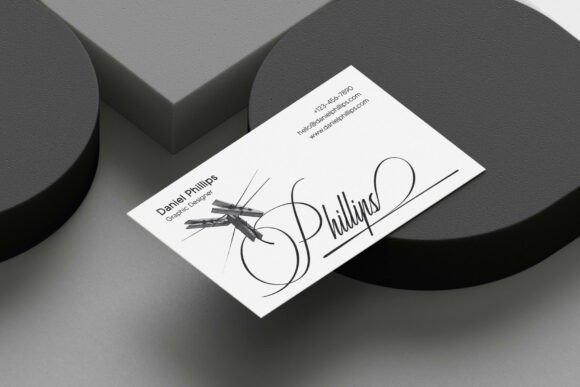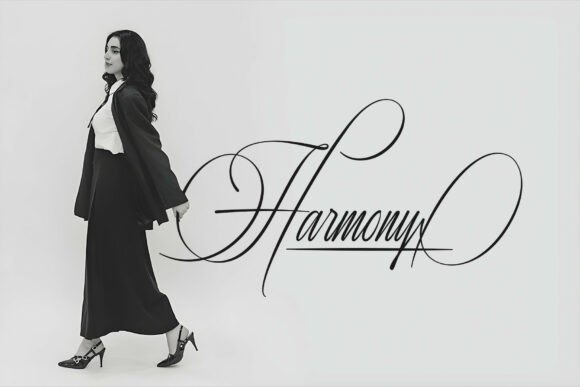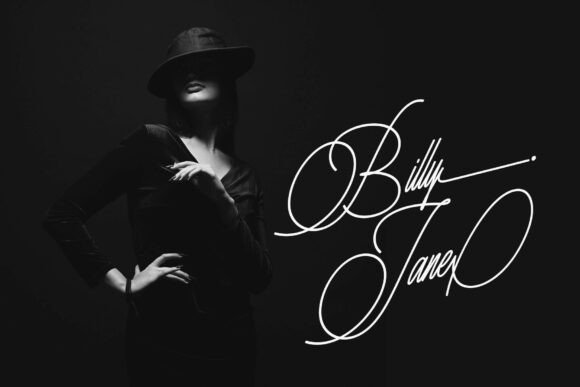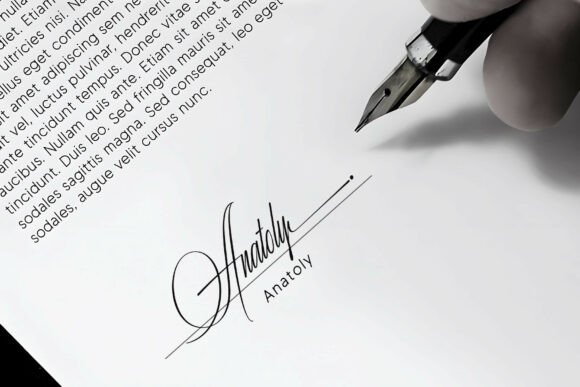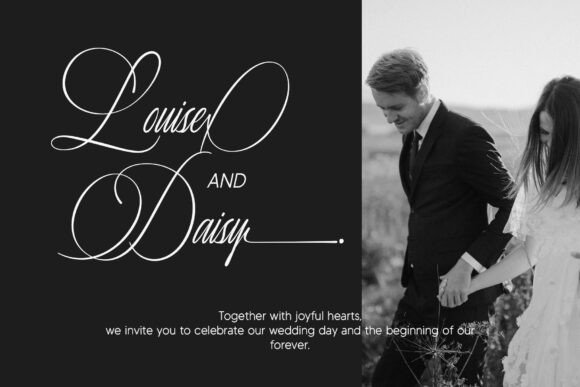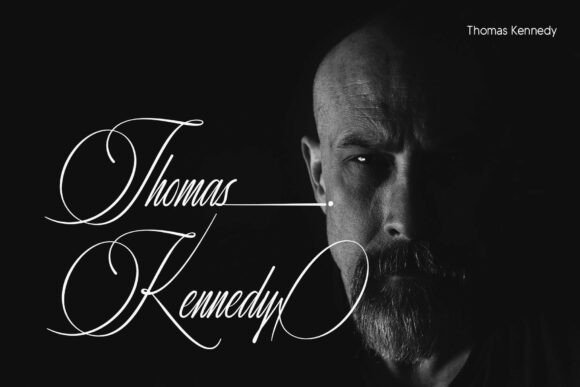
Introduction to Risemotion Signature Font
As designers, we’ve all been there – staring at a blank canvas, trying to bring our creative vision to life. The moment of truth arrives when we need to craft a signature that perfectly encapsulates our brand’s personality. It’s in these moments that a reliable design resource can be a game-changer. That’s where the Risemotion Signature Font comes in – a modern signature calligraphy font that’s designed to elevate your creative project with its sleek, high-quality letterforms.
What sets Risemotion Signature Font apart is its ability to balance form and function. With its controlled letterforms, balanced stroke contrast, and consistent spacing, this font ensures readability and visual structure, making it a valuable asset for designers. Whether you’re working on a branding project, creating wedding materials, or designing editorial layouts, Risemotion Signature Font provides a flexible and consistent signature-style lettering solution that’s sure to impress.
Key Features of Risemotion Signature Font
- High-quality design resource suitable for various creative projects
- Features a unique, handwritten style with various swashes and flourishes
- Perfect for adding a personal touch to logos, branding materials, and other design elements
Honest Review: Risemotion Signature Font
I recently came across the Risemotion Signature Font, and I must say it’s been a game-changer for my design projects. As a designer, I’m always on the lookout for high-quality design resources that can elevate my work. This font definitely fits the bill.
Here are some things that work well: ✨ The font is incredibly versatile and can be used for a wide range of creative projects, from logos and branding to typography-heavy designs. The transparent background makes it easy to work with, and the high quality of the font ensures that it looks great even at large sizes.
Some things to consider: ⚠️ While the Risemotion Signature Font is free to download, it’s not without its limitations. For one, the font is only available in a single style, which may not be ideal for designers who need more flexibility in their typography. Additionally, the font may not be suitable for projects that require a lot of customization.
Overall, I’m really impressed with the Risemotion Signature Font. It’s a great addition to any designer’s toolkit, and I’ve already found myself using it on several projects. If you’re looking for a high-quality font for your next creative project, I’d definitely recommend giving it a try.
Here are some key features of the Risemotion Signature Font:
- Versatile and easy to use
- Great for logos, branding, and typography-heavy designs
Tips for Getting the Most Out of Risemotion Signature Font
Use the font in bold or italic styles to add emphasis to your text. Experiment with different font sizes to create visual hierarchy in your design.
The Risemotion Signature Font is suitable for various creative projects, including logo design, branding materials, and marketing materials. It’s also a great choice for social media graphics and presentations.
Alternatives to Risemotion Signature Font
Great Vibes is a beautiful, elegant script font that’s perfect for design projects that require a touch of sophistication. It’s ideal for use in wedding invitations, business cards, and other creative projects where a high-quality, handwritten font is needed.
Compared to Risemotion Signature Font, Great Vibes has a more refined and polished look, making it suitable for professional and formal designs. Great Vibes is available for free download with a transparent background, making it easy to use in a variety of design contexts.
Alex Brush is a stunning, hand-painted font that’s perfect for designers who want to add a touch of whimsy to their projects. It’s ideal for use in creative projects such as book covers, posters, and advertising materials.
Compared to Risemotion Signature Font, Alex Brush has a more organic and hand-crafted look, making it suitable for designs that require a unique and personalized touch. Alex Brush is available for free download with a transparent background, making it easy to use in a variety of design contexts.